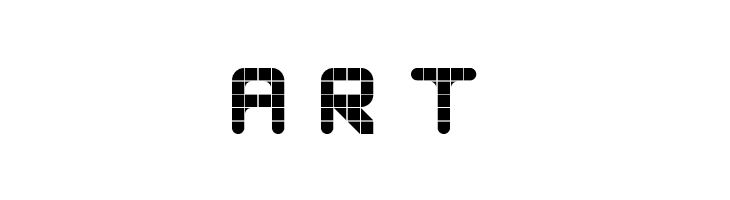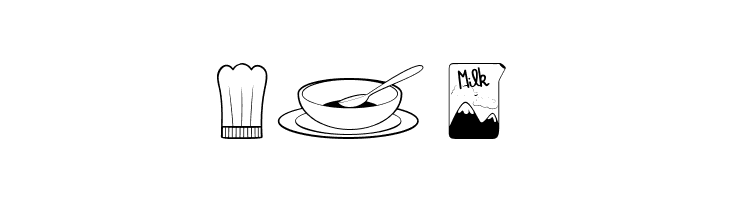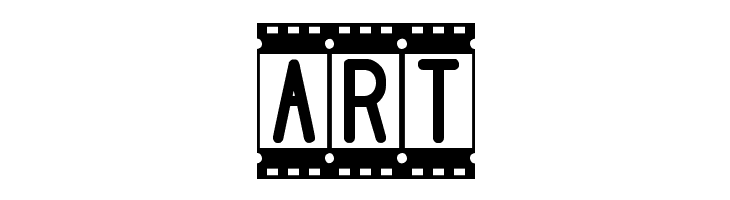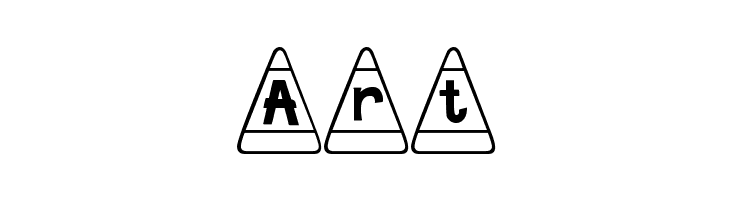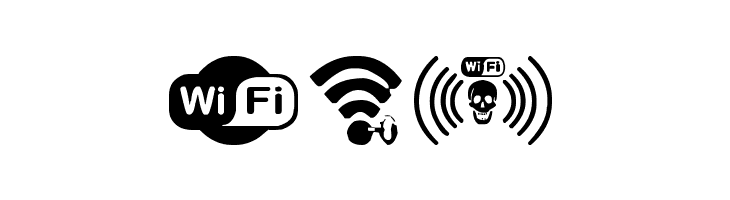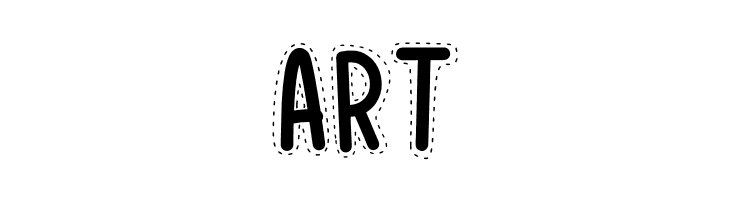
A hand-drawn, pencil-like font with a sketchy, artistic style.
A playful, cloud-like font with bold, fluffy outlines.
A geometric, angular font with a hexagonal theme, ideal for monograms and logos.
Hand-drawn outline icons themed around cooking and kitchen items.
A decorative font with bold characters enclosed in boxes, featuring a marquee light style.
A playful font with characters inside candy corn shapes, ideal for festive designs.
Icon-based decorative font themed around WiFi and wireless signals.
A playful, bold font with a hand-drawn style and dotted outlines.